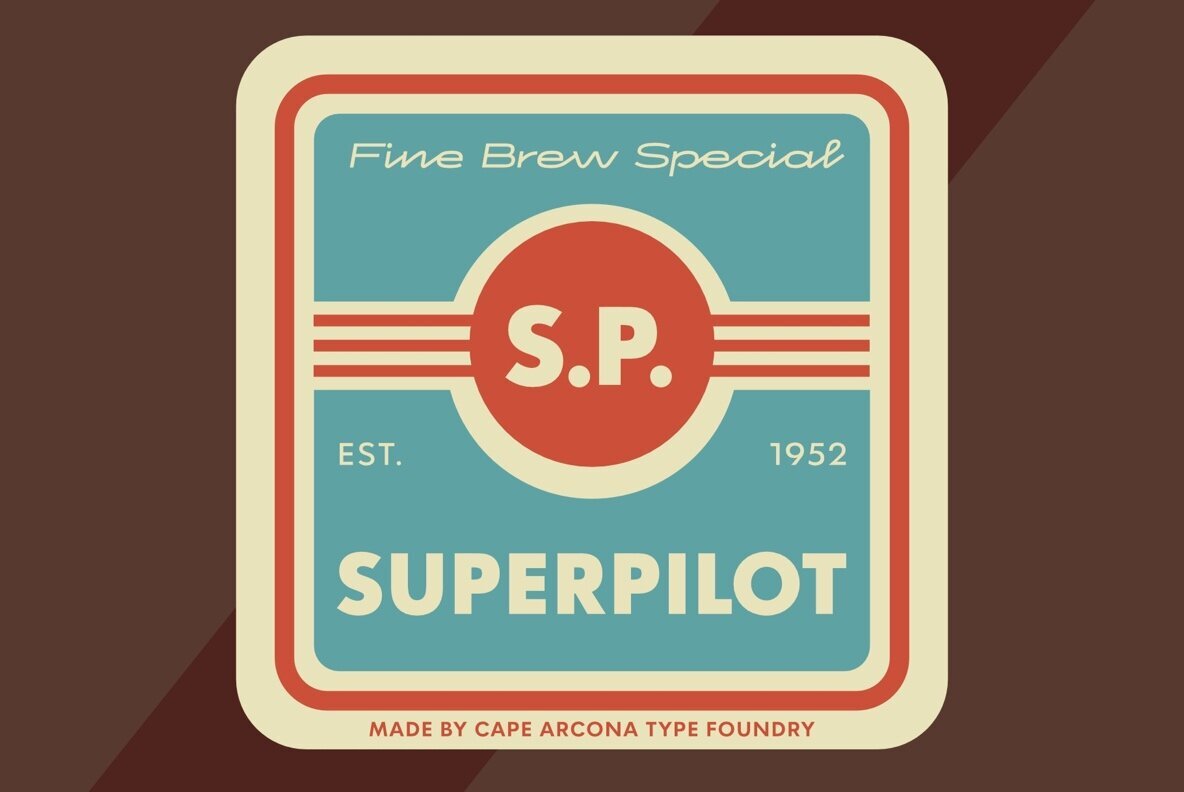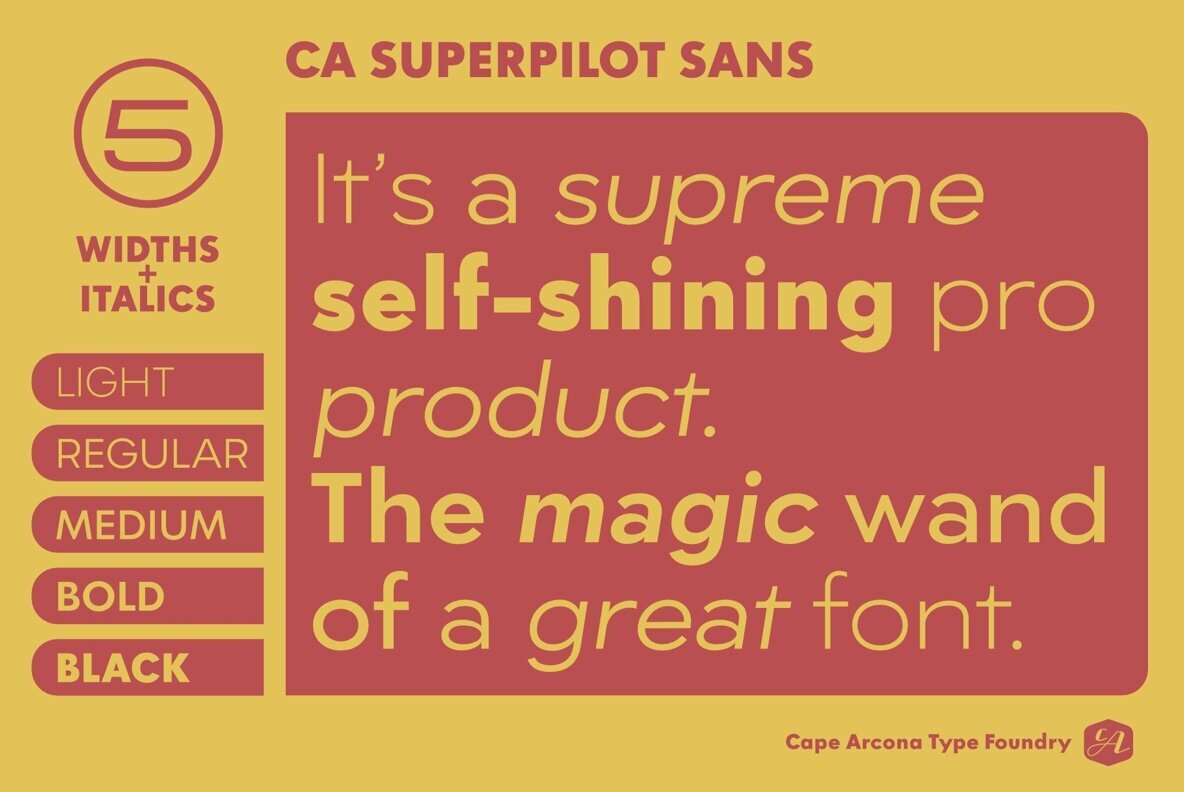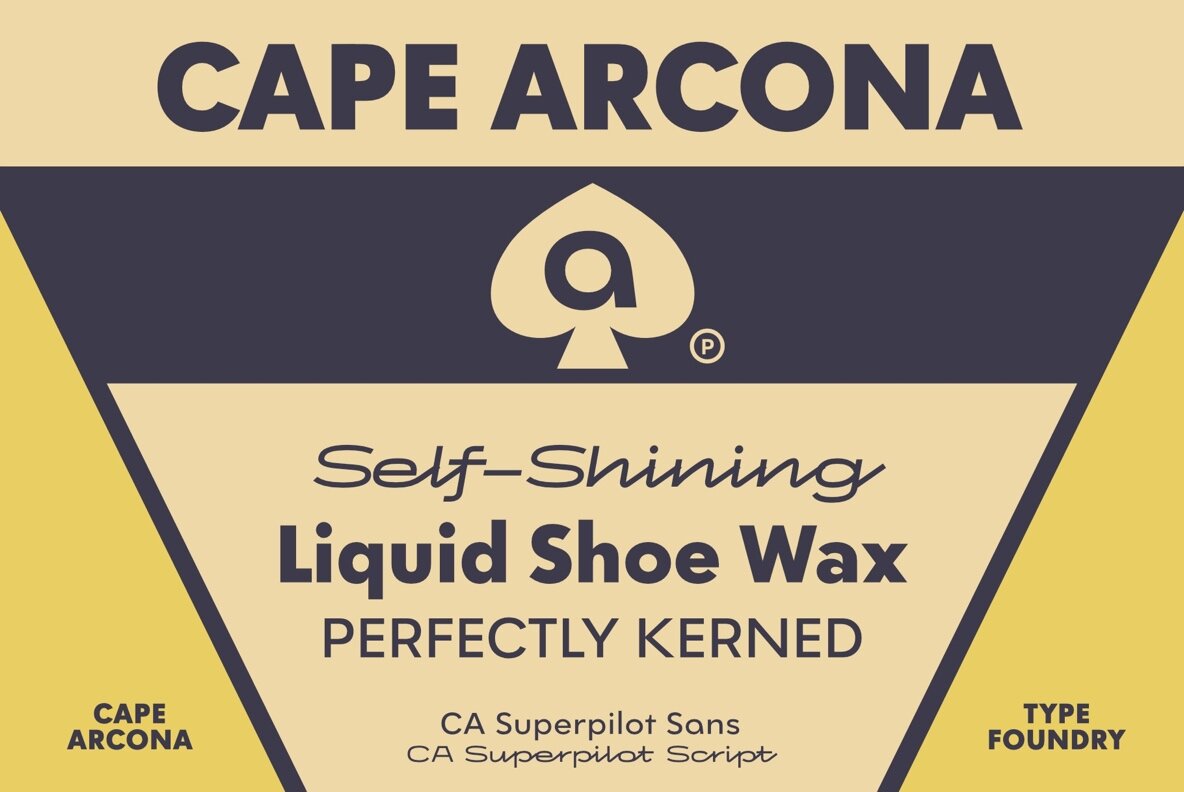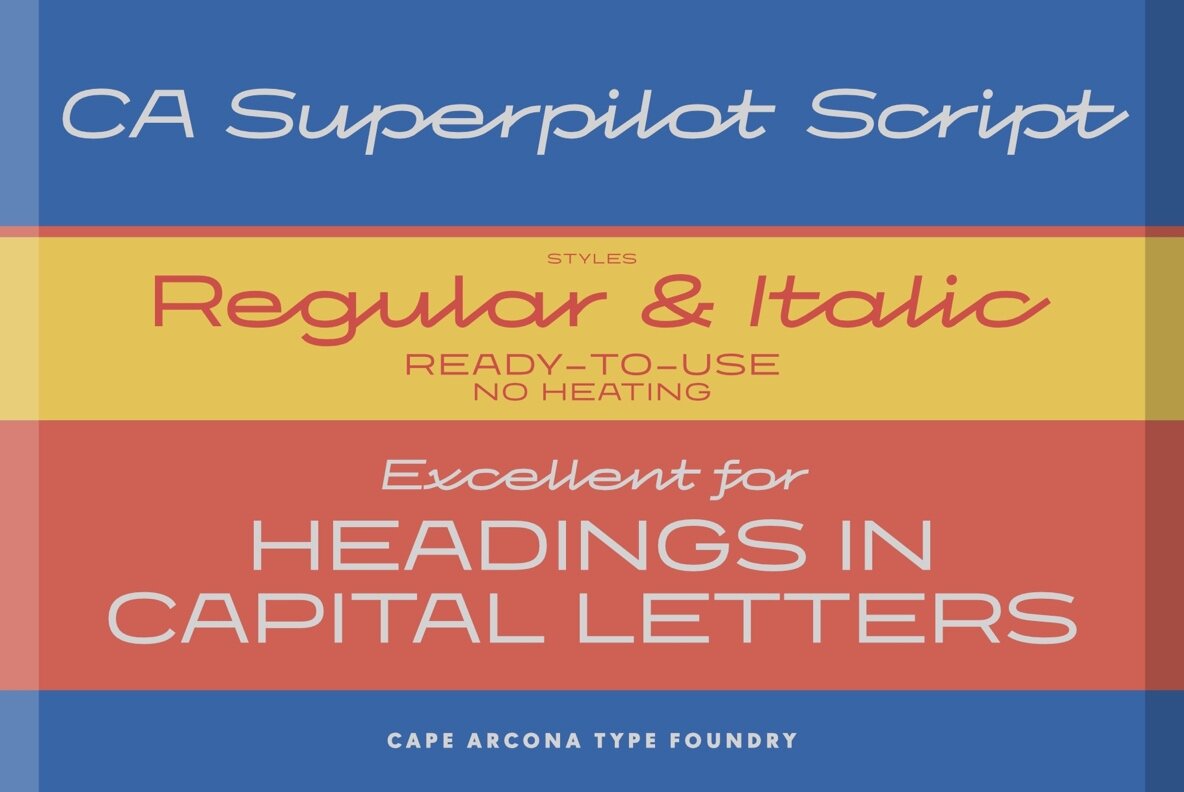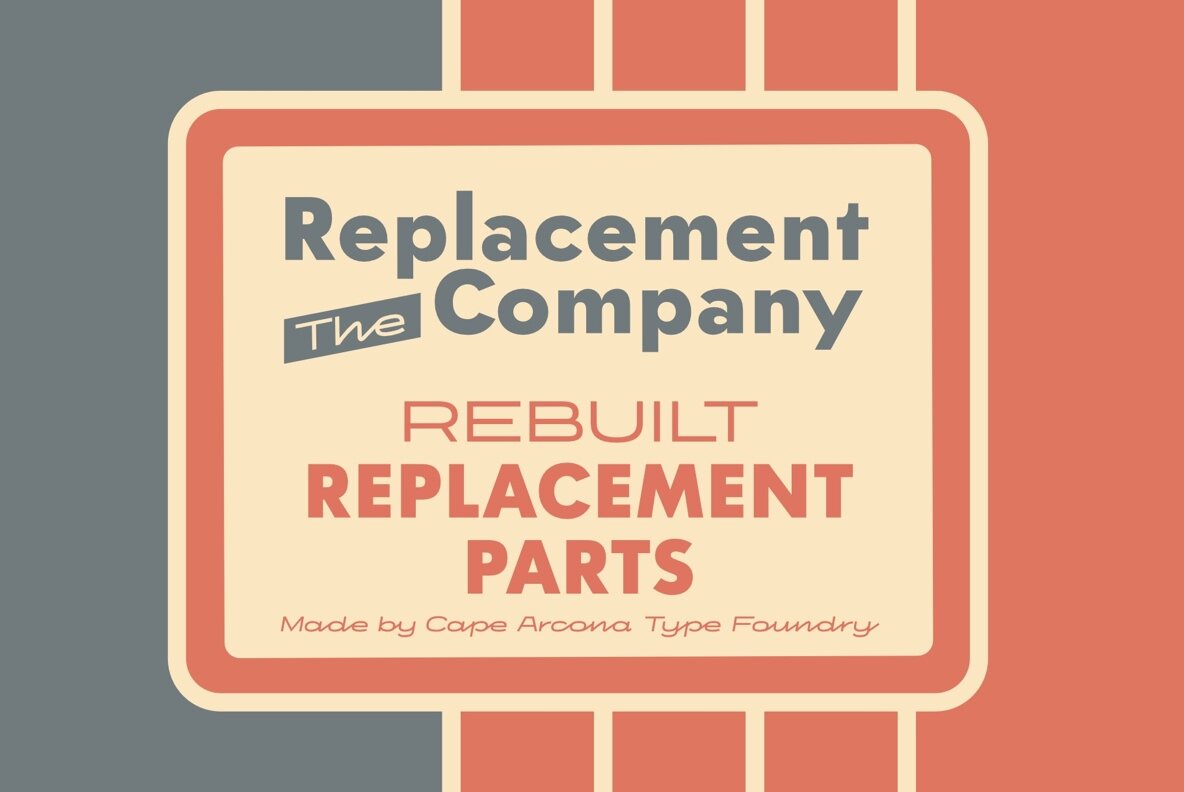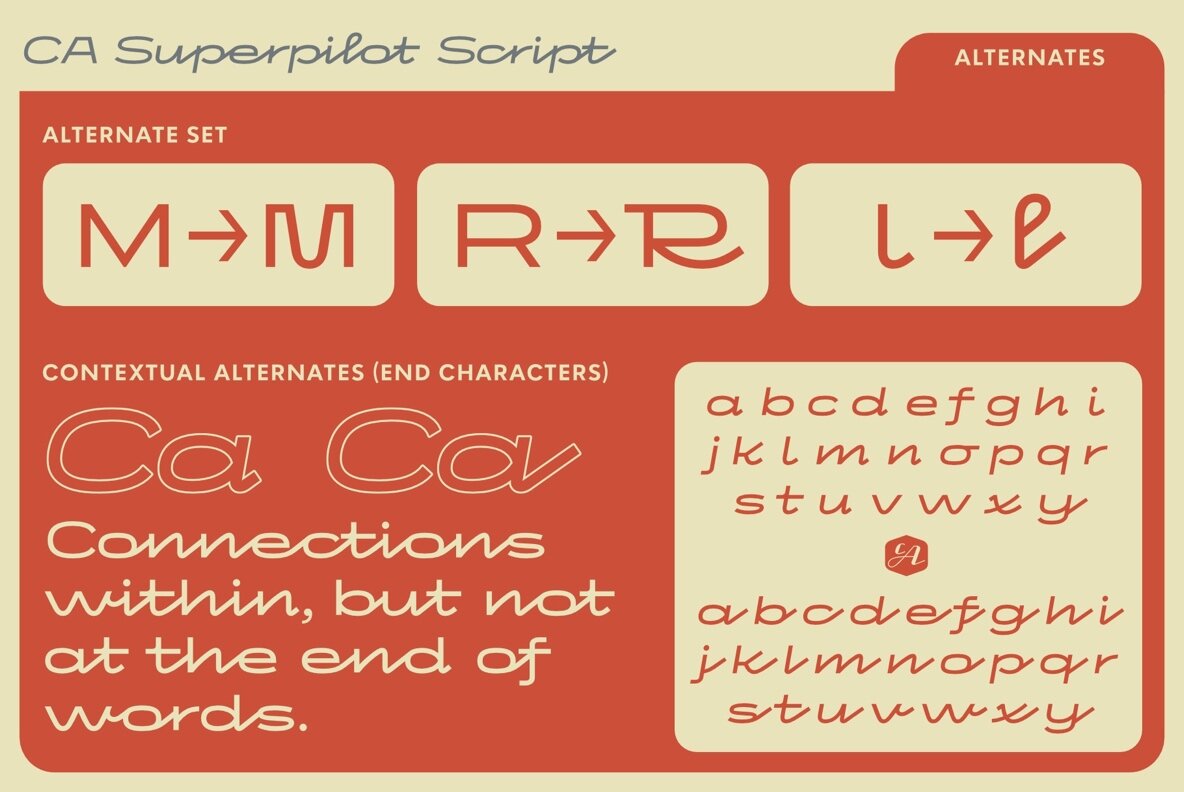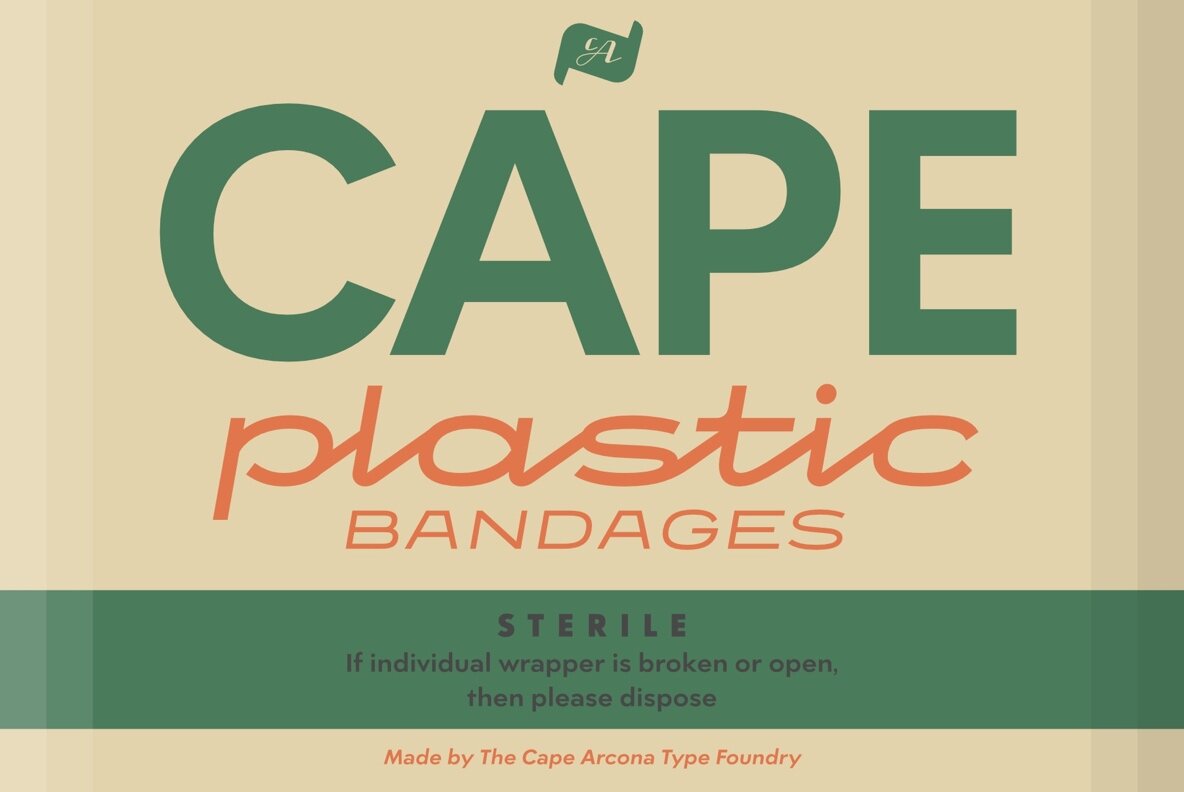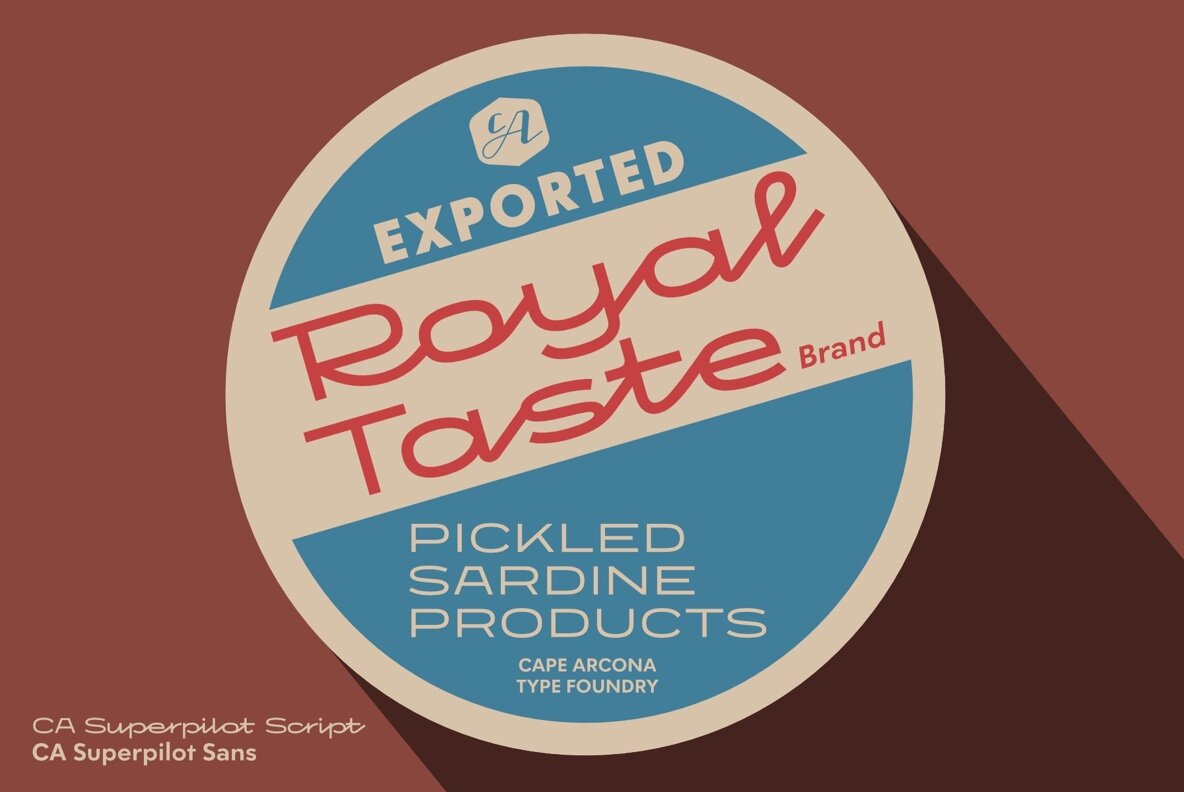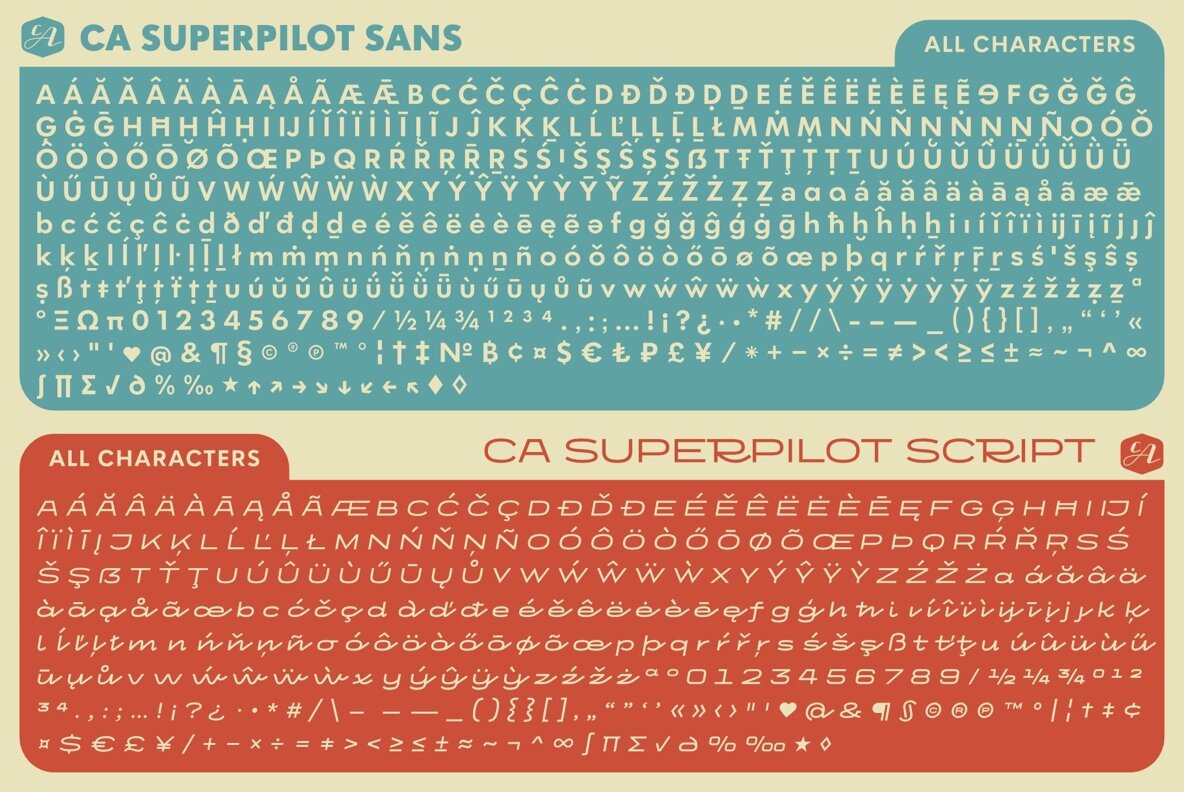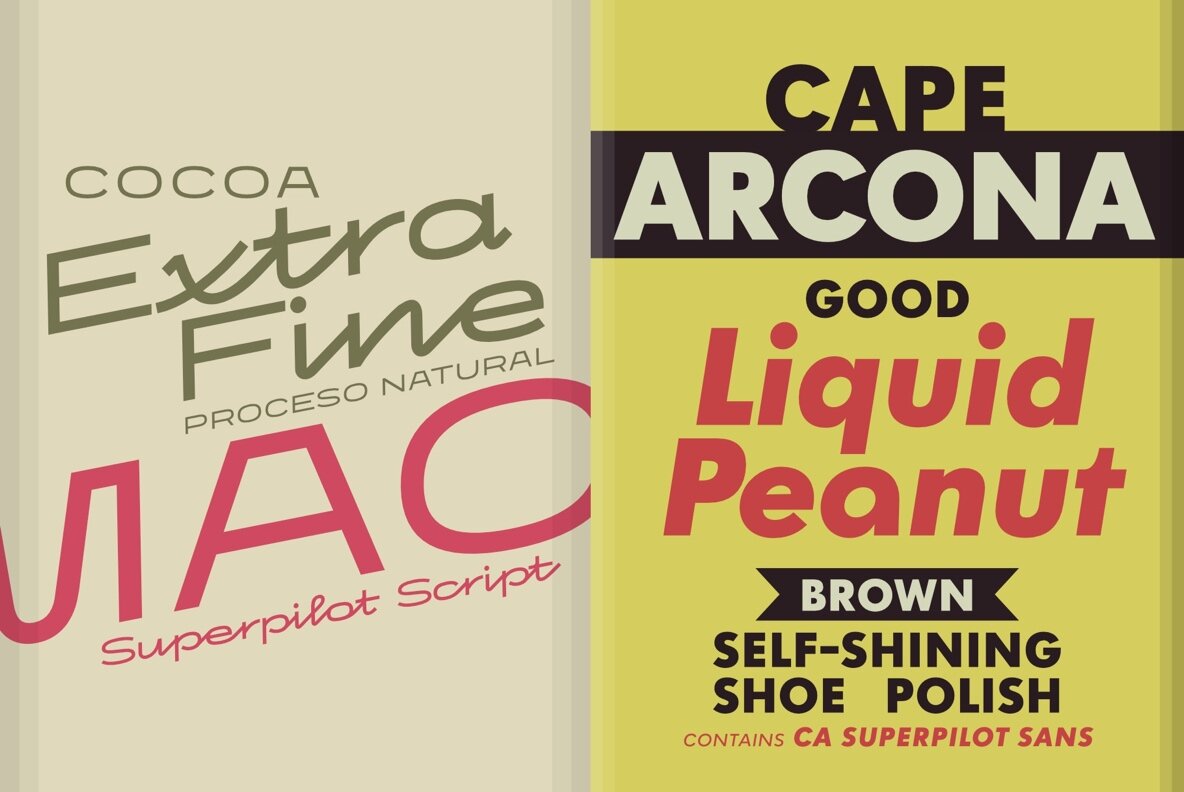
CA Superpilot Font
Introducing an exceptional package tailored specifically for designers and creatives: the CA Superpilot Sans & Script font family combination. Let's begin with the CA Superpilot Sans, which presents a contemporary twist on Futura, making it the ideal selection for those in search of a refined and up-to-date typeface. With five weights and italics, this font adapts seamlessly to any project. Additionally, it encompasses a comprehensive Central European character set and alternate characters, ensuring that your designs stand out in any language. On the other hand, we have the CA Superpilot Script font family, a monoline script font that draws inspiration from the logos and typography of vintage camera equipment from the 1950s. This results in a distinct and retro-inspired typeface that infuses character and charm into any project. It is available in Regular and Italic styles, providing you with ample options to work with. Just like the CA Superpilot Sans, it includes an extensive Central European character set and alternate characters. Despite being a script typeface, its bold strokes and clean lines make it an excellent choice for captivating and impactful headlines in uppercase. When these two fonts are combined, they offer unparalleled versatility for any project, whether it involves branding, website design, or print design. Don't miss out on this essential font pairing – acquire it today!